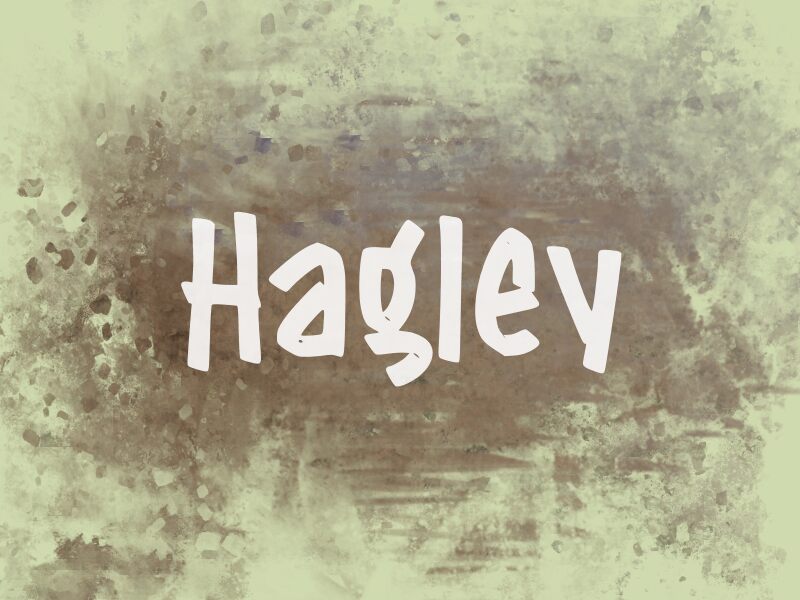
Hagley
Hagley font by wep is a comic display font that brings a playful and humorous touch to your designs. Its dynamic flow, irregular spacing, and casual vibe make it perfect for adding a friendly appearance to any project. This cartoon-inspired typeface is informal in nature but works well as the main font in your projects or a secondary one.
Introduce Hagley in exciting creative designs like game designs, children books, comics, cartoons, school materials, presentations and other educational contexts. Try it out in advertisements for kids’ products where joy evocation is needed like toys or candies. Also use in product design ideas including packaging or fun brand logos.